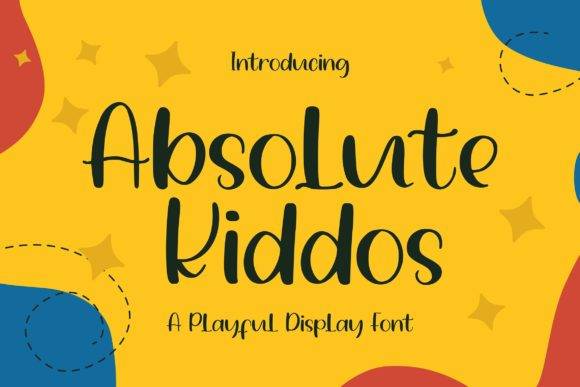
Absolute Kiddos Font for Cute Stickers and Kids Crafts
This is a playful display font with rounded, cheerful letterforms designed for use in children’s craft projects and printable designs. Absolute Kiddos brings a lighthearted, approachable style to stickers, labels, learning aids, and decor.
As a font entity, it’s optimized for cutting machines and printable formats, making it easy to apply across digital platforms, craft software, and classroom resources. Its friendly shapes and wide readability make it a favorite for youth-focused design.
Whether you're decorating a classroom, personalizing birthday goodies, or making crafts with kids, this font adds joy and charm to every creative piece.
- Cute printable stickers and name tags
- Craft fair labels and handmade gifts
- Birthday party decorations and signage
- Classroom posters and worksheets
- Kid-focused branding and logos
- Kid-friendly and ultra-readable style
- Perfect for school, crafts, and parties
- Easy to cut, print, and layer
- Fun aesthetic for branding and learning
Q: What kind of font is Absolute Kiddos?
A: It's a rounded, playful display font made specifically for kids crafts, printables, and fun sticker designs.
Q: Does the font weld cleanly for cutting?
A: Yes, its simple structure and smooth curves make it cut-friendly with clean welds in design software.